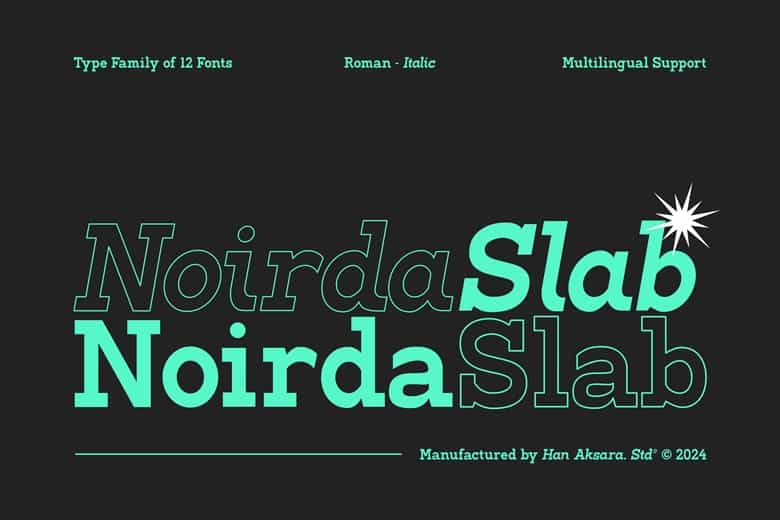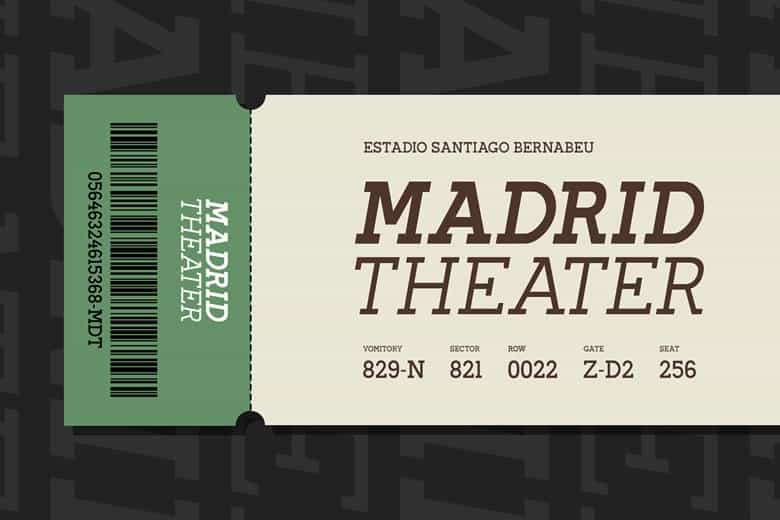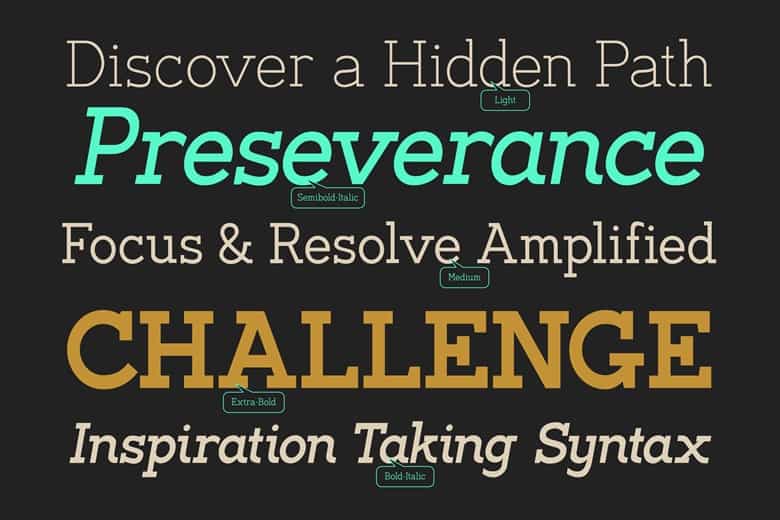
Get professional with your design projects and choose a slab serif font that represents strength, men, and Vintage style. This font has powerful shapes and sanitary characters with a special type of serifs that make the font look very powerful and stylish. This font derived from the traditional slab serif has a futuristic look to it; this makes it perfect for both retro and modern styles.